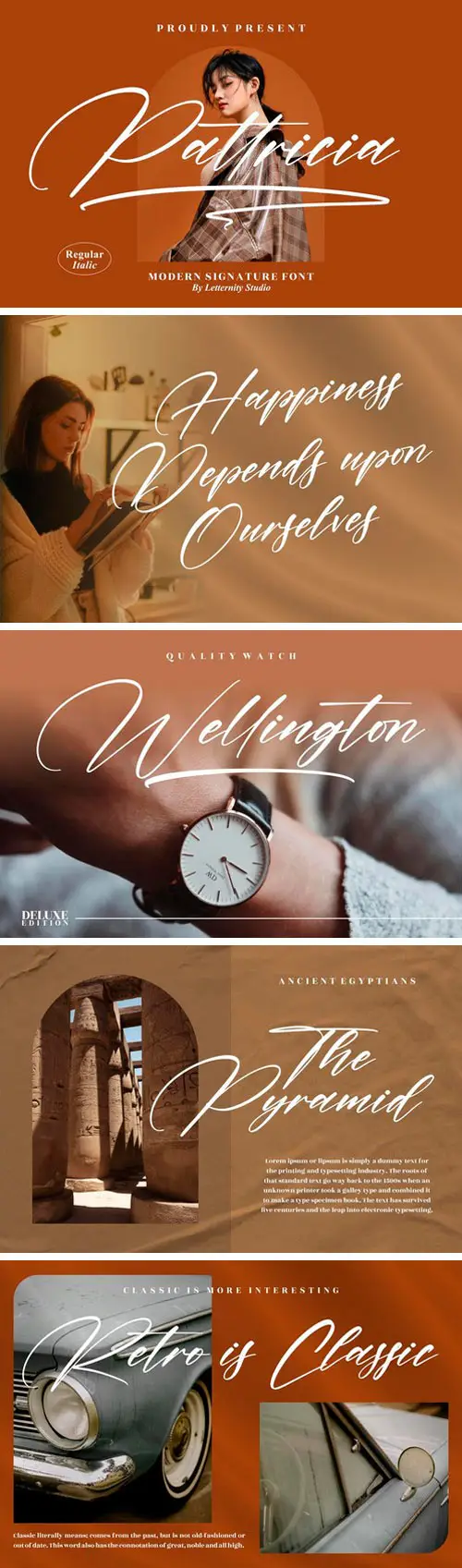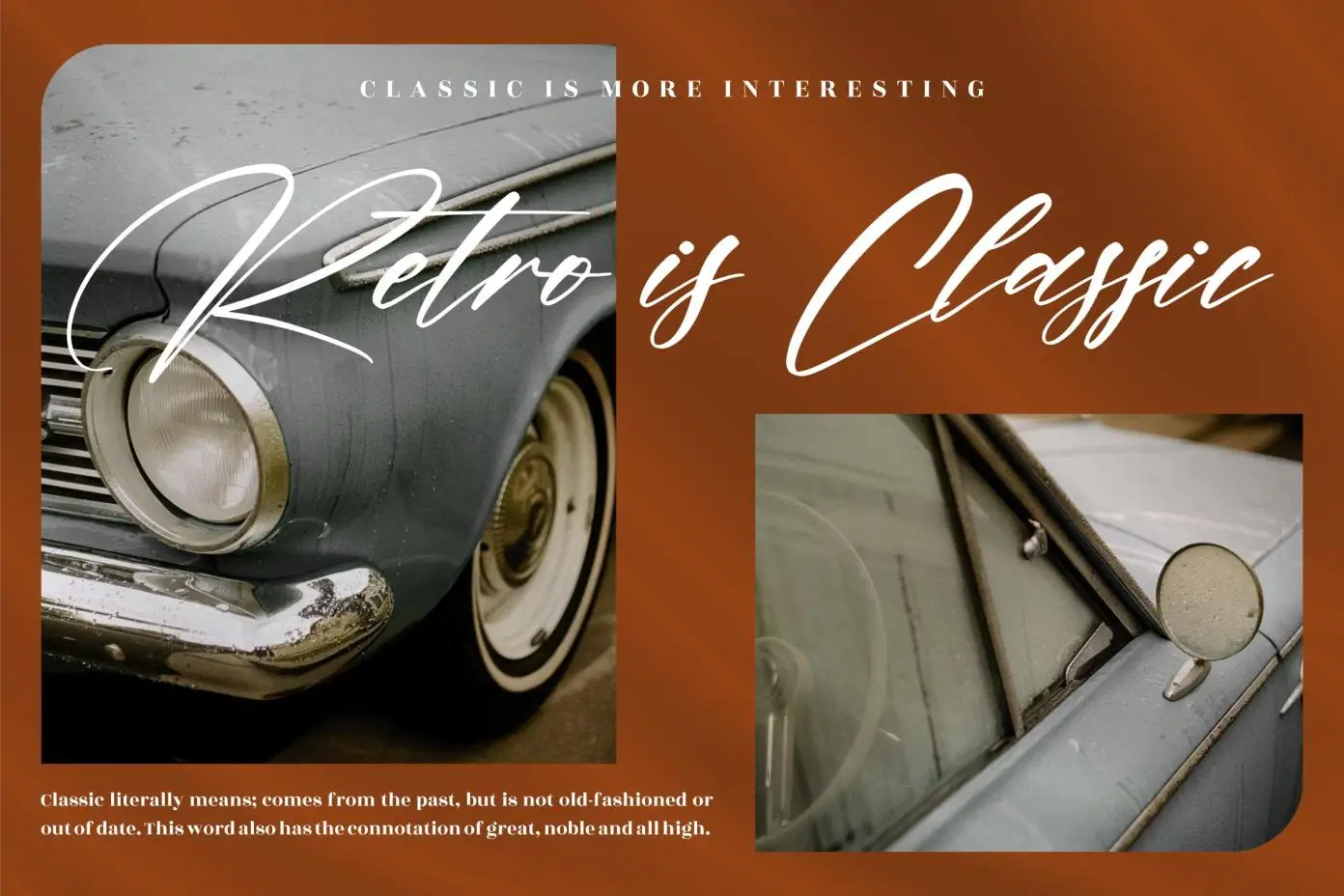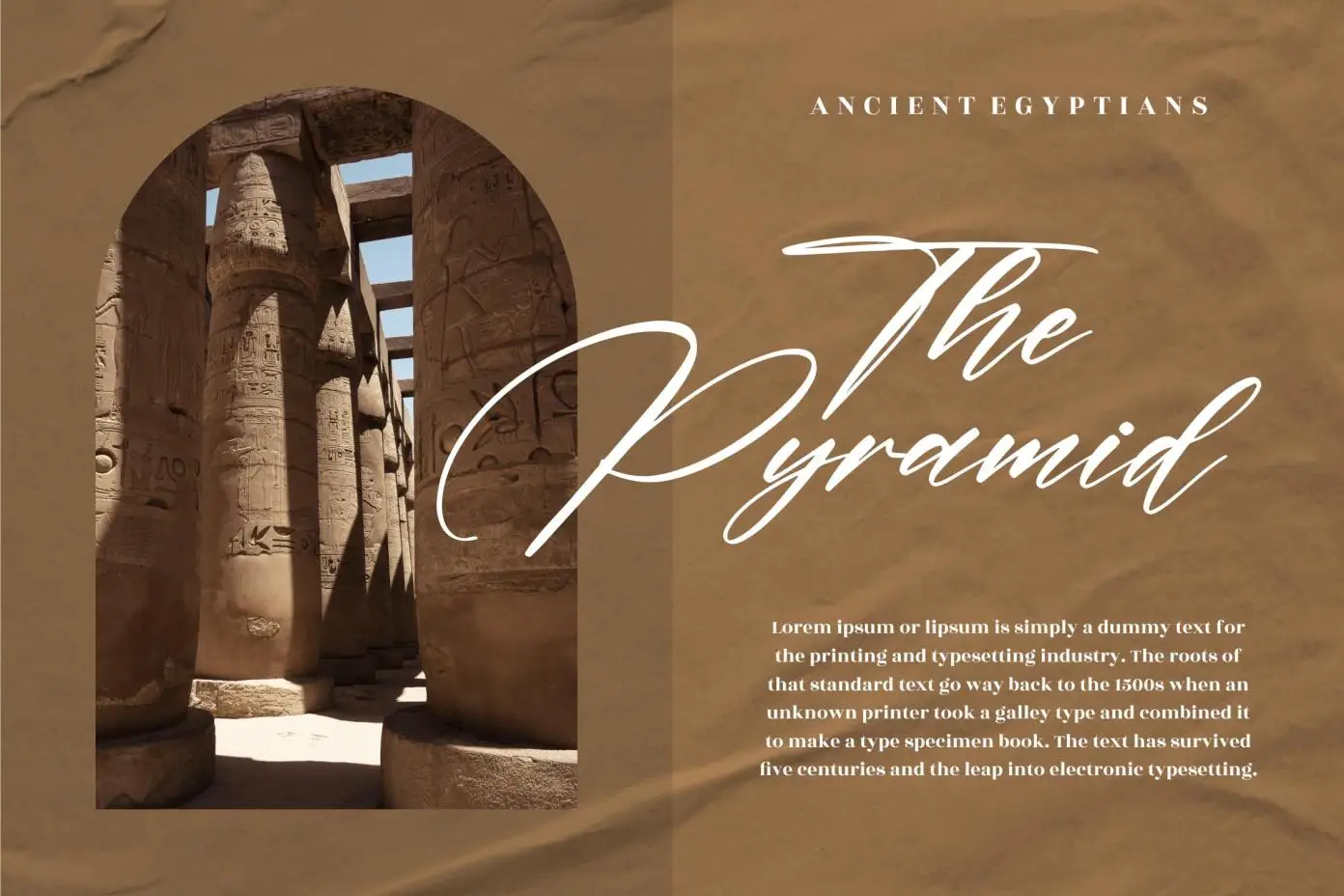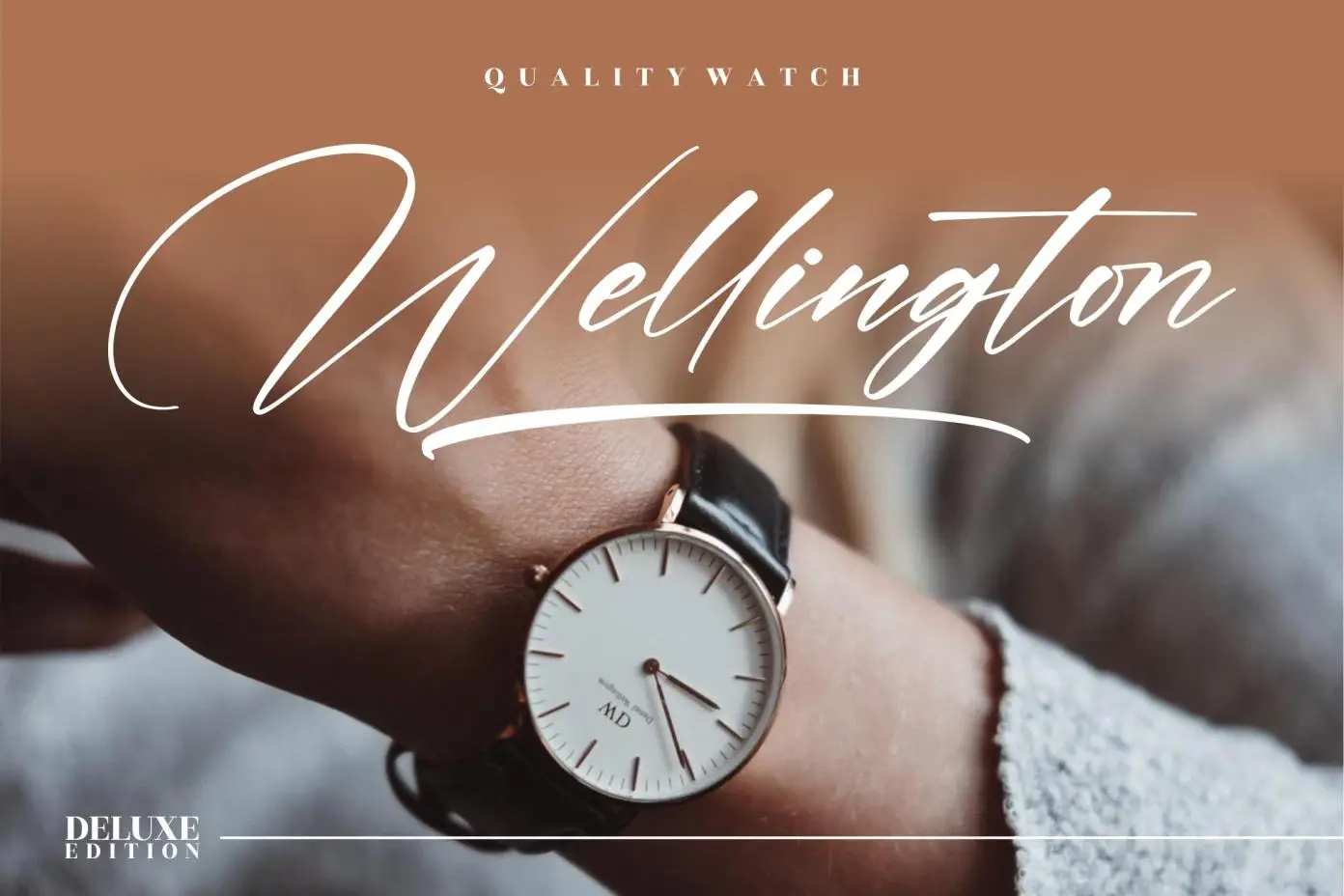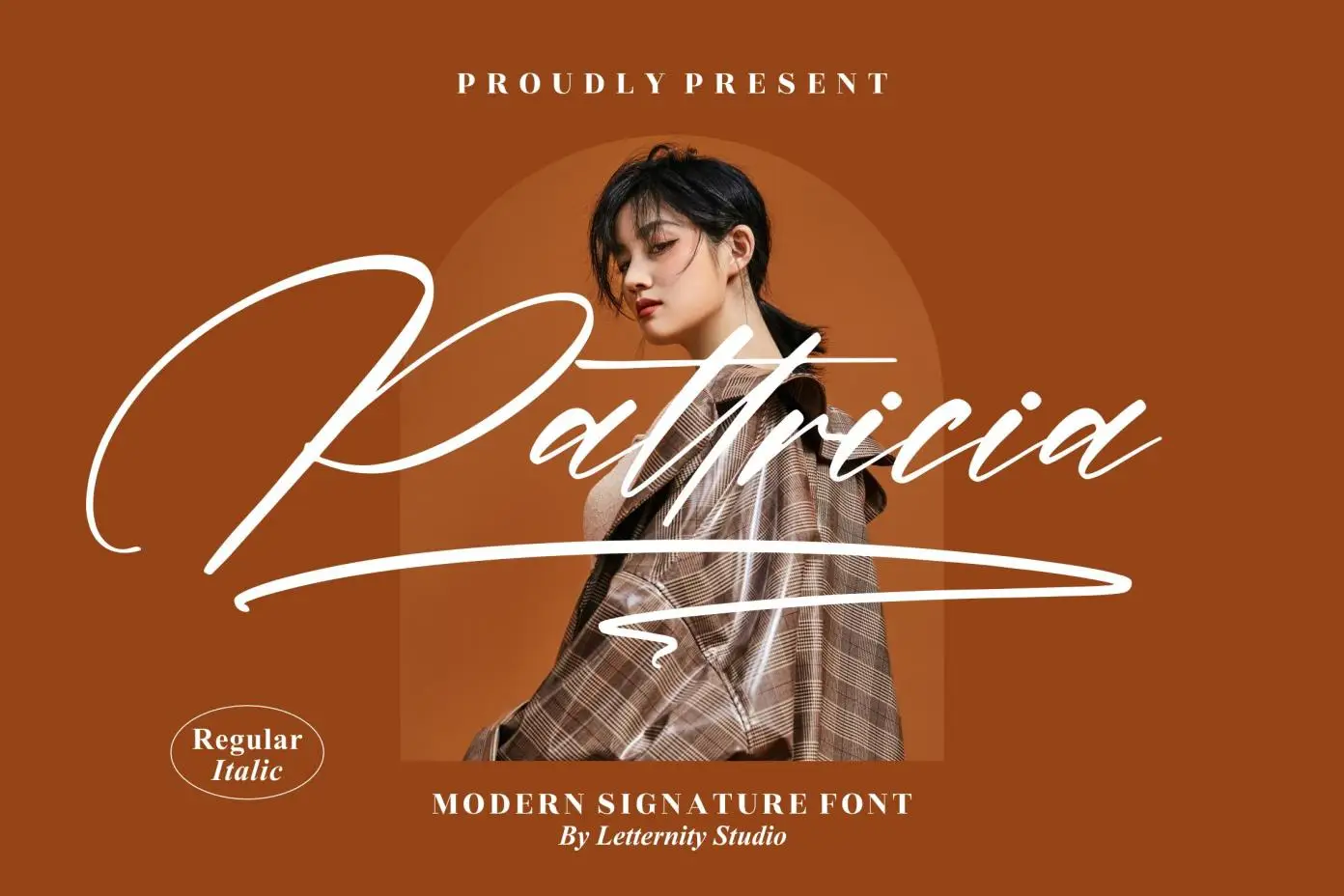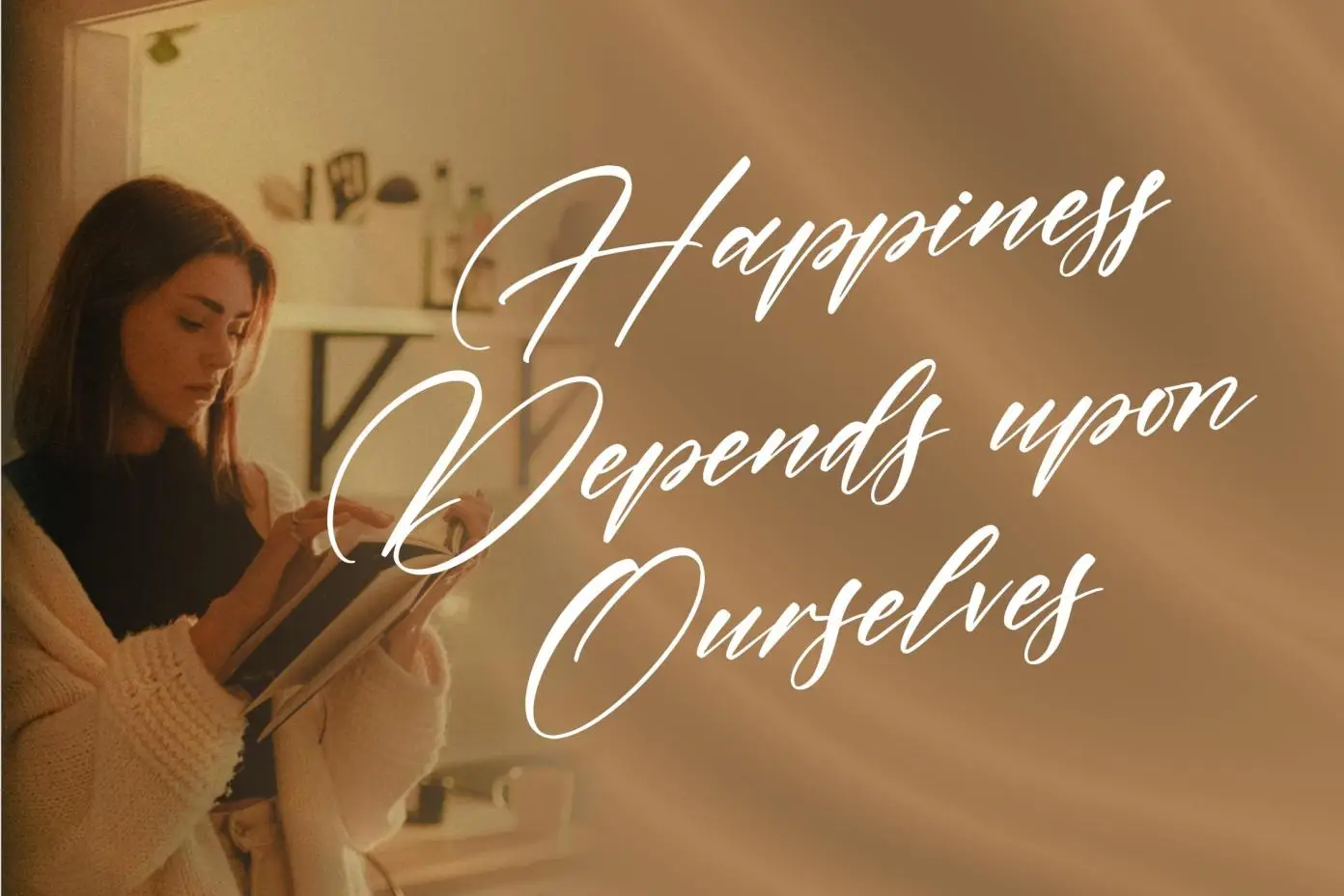
Pattricia – Modern Signature Font
Pattricia is a modern signature font that captures the essence of elegance and sophistication. With its stylish cursive strokes, this font is perfect for creating a personal touch in your designs. Whether you’re working on branding, logos, or invitations, Pattricia adds a unique flair to any project.
• Beautiful cursive design
Ideal for branding, logos, web design, and print materials. Use Pattricia to create eye-catching headings, invitations, and promotional graphics.